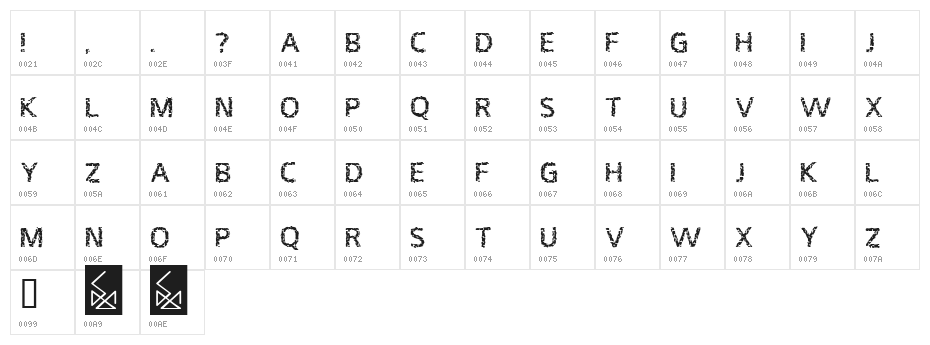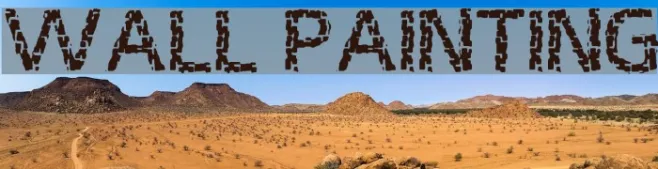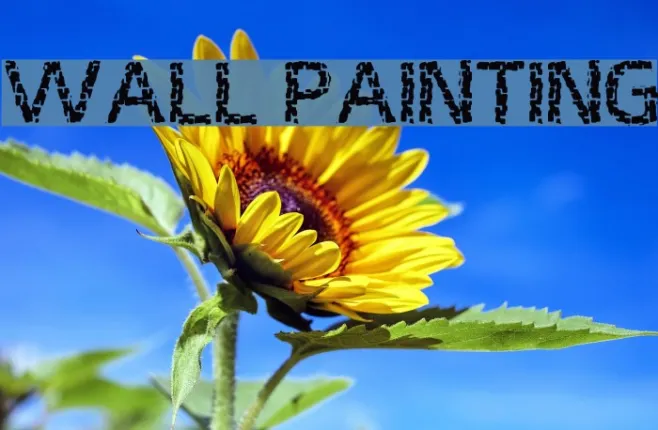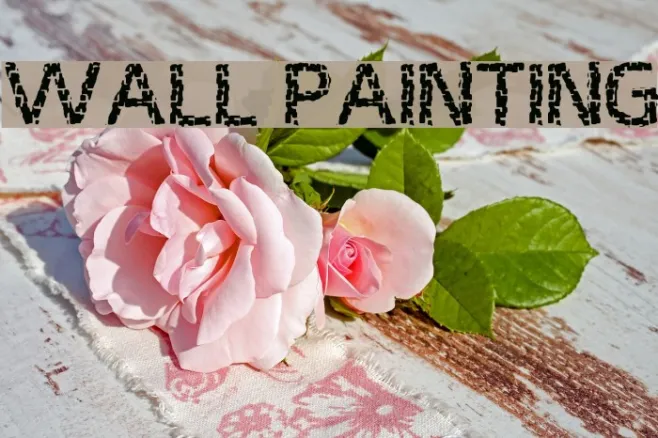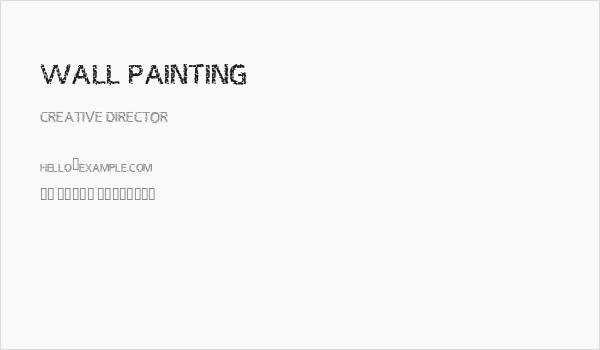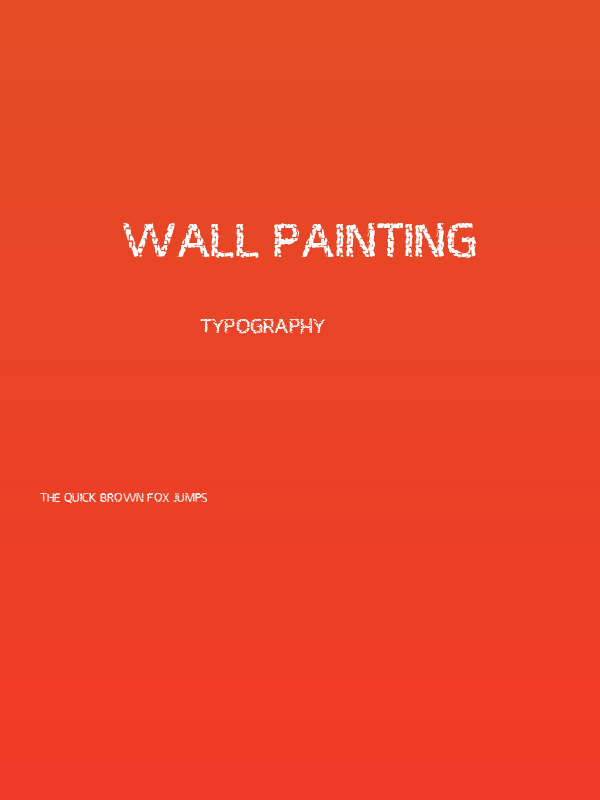
WALL PAINTING Font
WALL PAINTING Description
This font features a unique, textured design that mimics the appearance of paint splatters or wall graffiti. Each character is bold and has an irregular, distressed edge, giving it a rugged and artistic feel. The uppercase letters are prominent and maintain a consistent height, while the lowercase letters are not present in this sample. The font's style is reminiscent of urban street art, making it stand out with its bold and creative expression. It lacks numerals and special characters, focusing solely on the alphabet. This design is perfect for projects that require a strong visual impact and a touch of creativity.
| Overall Style | Urban, Artistic, Rugged |
| Proposed Projects | Ideal for street art-inspired designs, posters, album covers, and creative branding. |